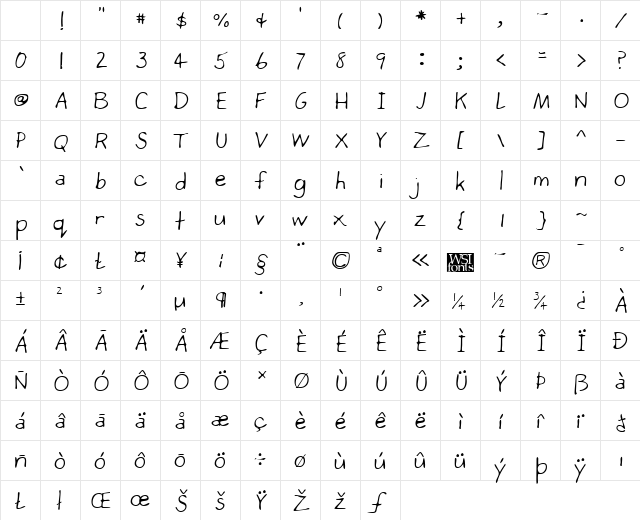
VeronicasHand Regular Free Font
VeronicasHand Regular
VeronicasHand Family
Design Context for VeronicasHand
VeronicasHand flows with the natural rhythm of handwritten lettering, making it ideal for designs that call for warmth and personal expression.
Font Pairing: Combine VeronicasHand with a simple geometric sans for maximum contrast - the tension between flowing curves and clean structure is a classic typographic pairing.
Pro Tip: Use VeronicasHand for short runs of text - names, titles, or taglines. Extended body copy in script faces tires the eye quickly.